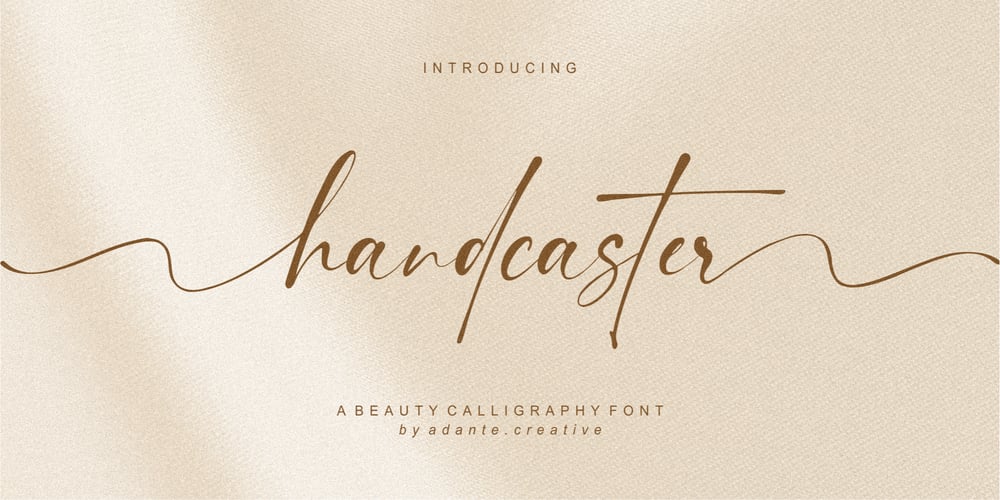
Handcaster Font Family was designed by Yanto Suheri and published by Adante Creative. Handcaster contains 1 styles and family package options. Introduced by Adante.CreativeProudly presenting Handcaster is a beautiful calligraphic font.Handcaster is perfect for product packaging, branding projects, magazines, social media, wedding invitations, or just used to express words above the background.Handcaster has multilingual support.Enjoy the font, feel free to comment or feedback, send me PM or email.